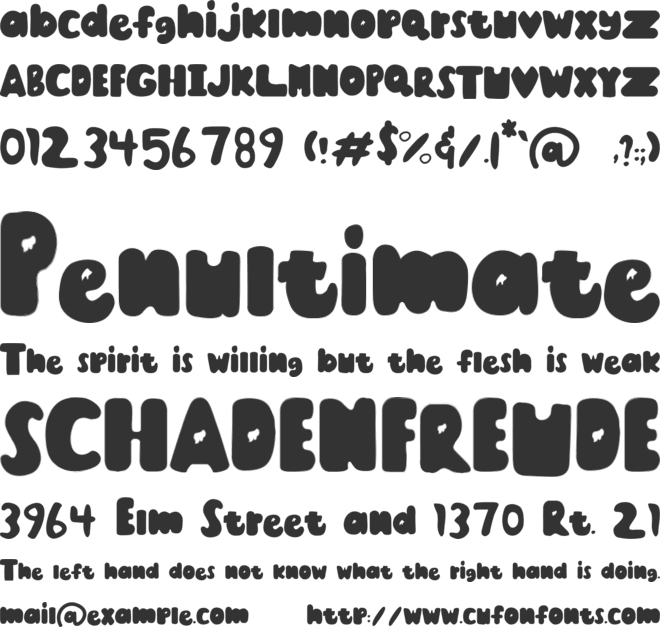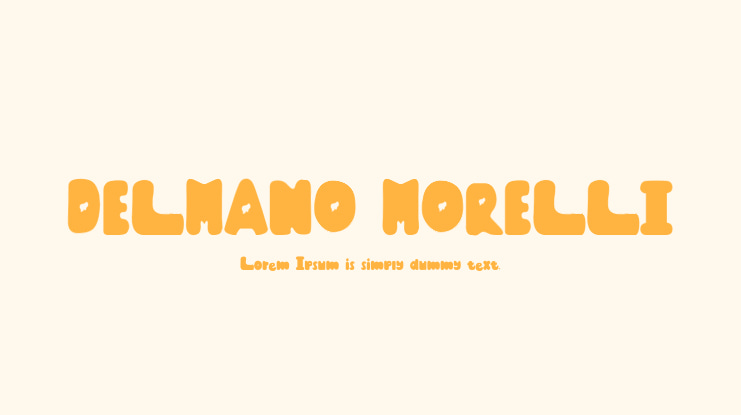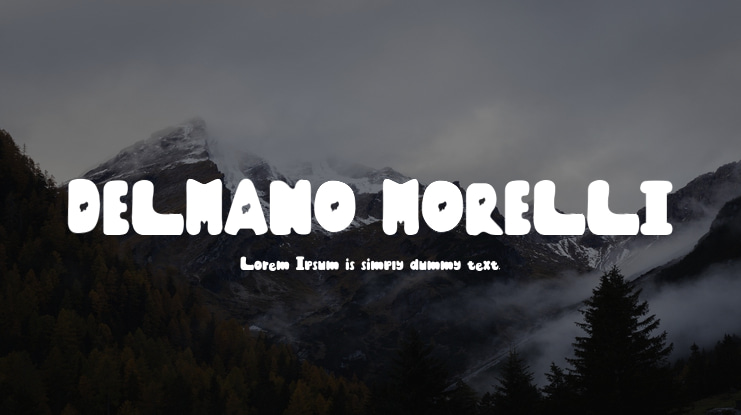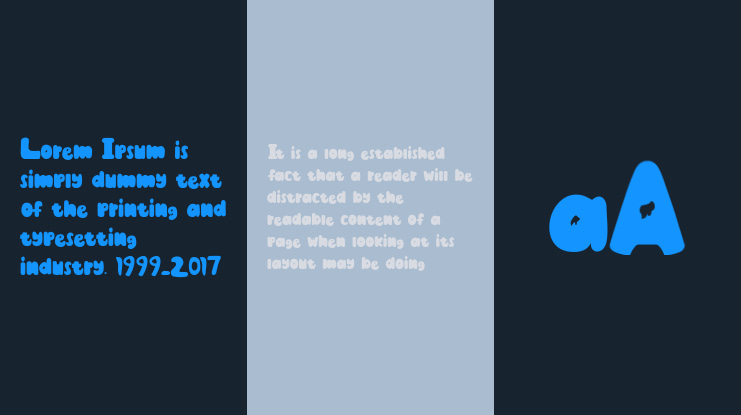
DELMANO MORELLI Font
Delmano Morelli is a bold display font inspired by a vintage typography from movies in the roaring '20s. Specially drawn to make any design project look fancy and stylish at the same time.
Delmano Monelli best uses for poster, logotype, cover, logo, branding, social media, advertisement and many more. Let your imagination run free!